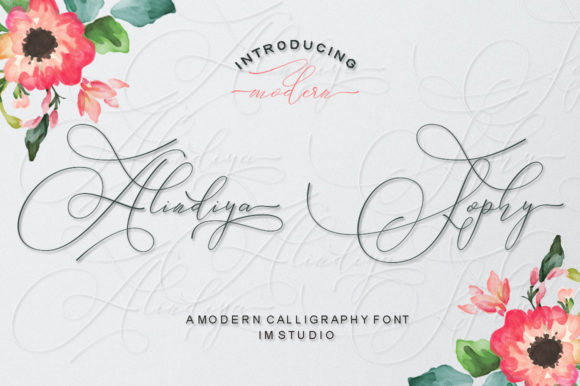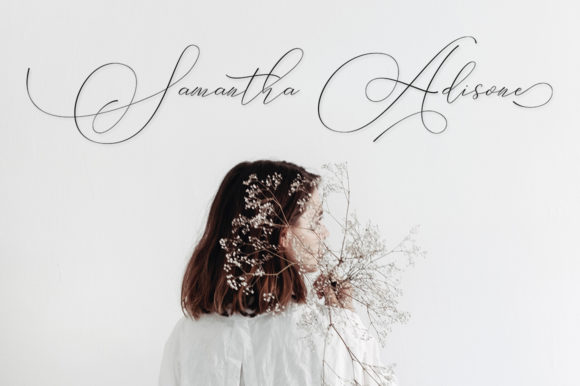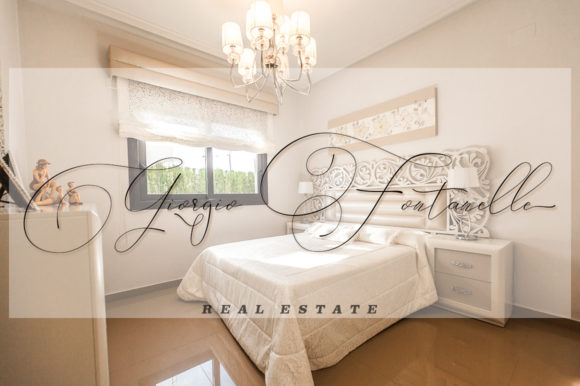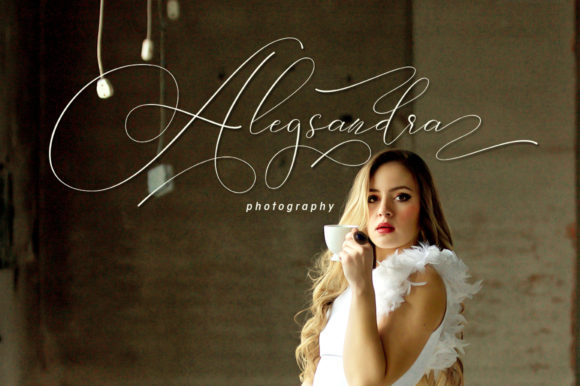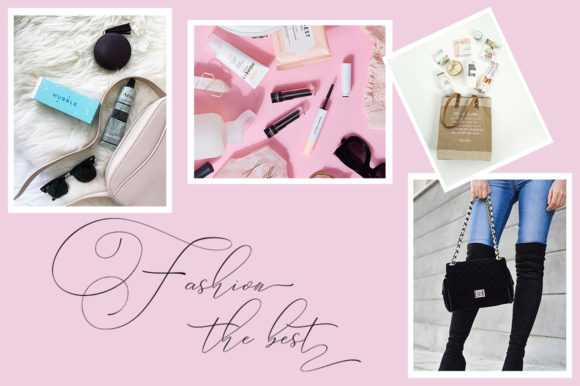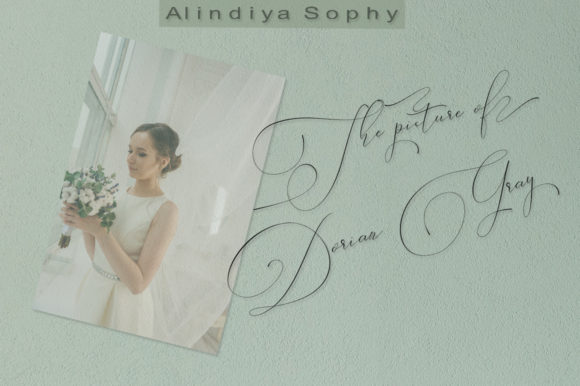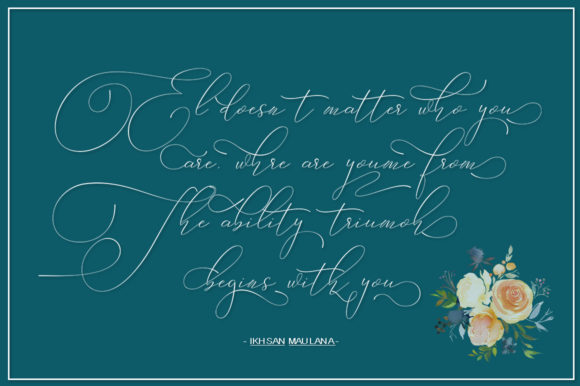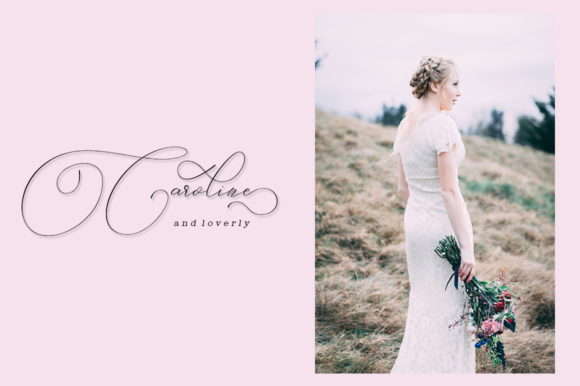
Alindiya Sophy Font
About Alindiya Sophy Font
Alindiya Sophy is a carefully handcrafted script with delicate swashes. It will add a romantic spark to any creative idea!